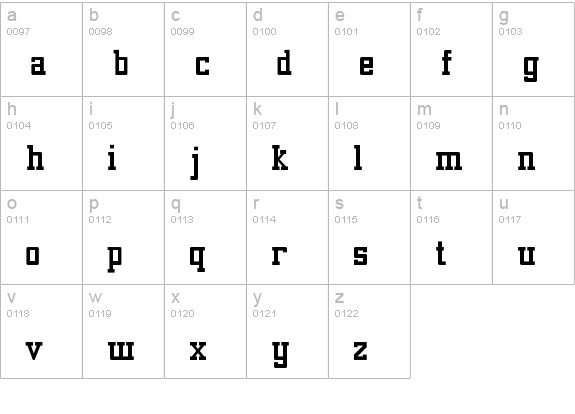
MegaType Font Details
Introducing MegaType font - a bold and versatile typeface designed to make a statement in any project. With its sleek and modern design, MegaType is perfect for creating eye-catching headlines, posters, and branding materials. This font features clean lines and sharp edges that give it a contemporary feel, making it ideal for a wide range of design applications. What sets MegaType font apart is that it is available for free download at FontsMarket.com. That's right, you can easily access this stunning font without any cost, making it a valuable addition to your design toolkit. Whether you're working on a professional project or a personal creative endeavor, MegaType font is sure to elevate your designs and captivate your audience. Don't miss out on the opportunity to enhance your work with MegaType font - download it for free today at FontsMarket.com and take your designs to the next level!